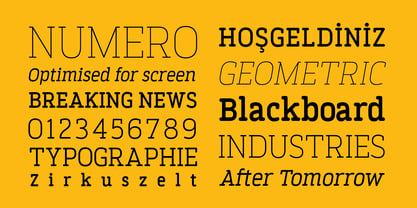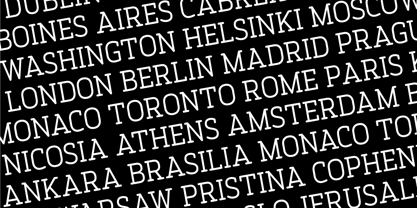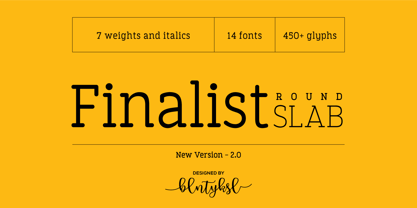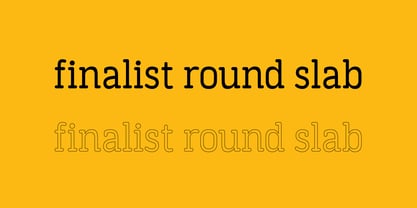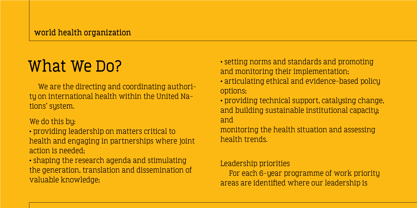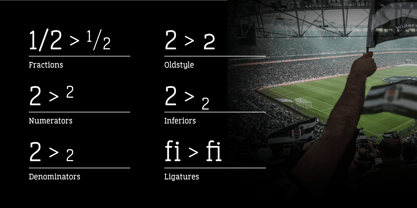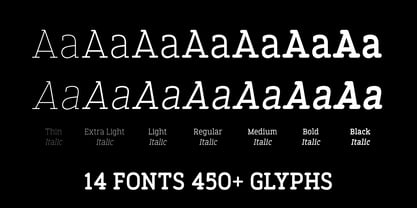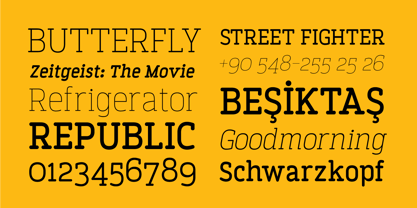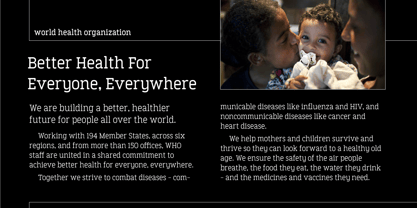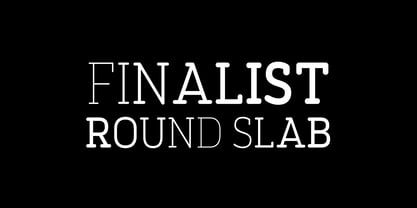
Finalist Round Slab
by Bülent Yüksel
The Finalist Round Slab Font Family was designed by Bülent Yüksel and published by Bülent Yüksel. Finalist Round Slab contains 4 styles and family package options.
The font was intended primarily to have a stronger body. It has a simple geometrical surface. This font has a strong personality, that makes it perfect for use in headline sizes but means it also works gracefully within text blocks.
"Finalist Round Slab" is carefully crafted and a unique slab serif. Use for websites, print, motion graphics, logo design, packaging design, t-shirts and more.
The designation “Finalist Round Slab Regular” forms the central point. The first figure of the number describes the stroke thickness: Thin to Black. "Finalist Round Slab" comes 7 weights and italics total 14 types. The family contains a set of 450+ characters.
Case-Sensitive Forms, Classes and Features, Fractions, Superior, Inferior, Denominator, Numerator, Old Style Figures just one touch easy In all graphic programs.
About Bülent Yüksel
Based in Istanbul, Turkey, Bülent Yüksel began his career as a graphic designer in 1996. He was Illustration and black pen work and oil painting painter. Ultimately, he devoted himself to "Typeface Design", which is the most difficult discipline of "Graphic Design". Bülent officially created his foundry in 2013 with his MyFonts debut of Formetic. Since then, this show has continued with the high-selling Full Sans, which is "a modern sans serif" with a geometric touch. Then, he became popular with Bosphorus. He still continues to create new fonts full time.Bülent Yüksel was born in Istanbul, 1973. He married and has two children. Bülent Yüksel's font design philosophy is: "There is nothing as satisfying as doing a good quality job."